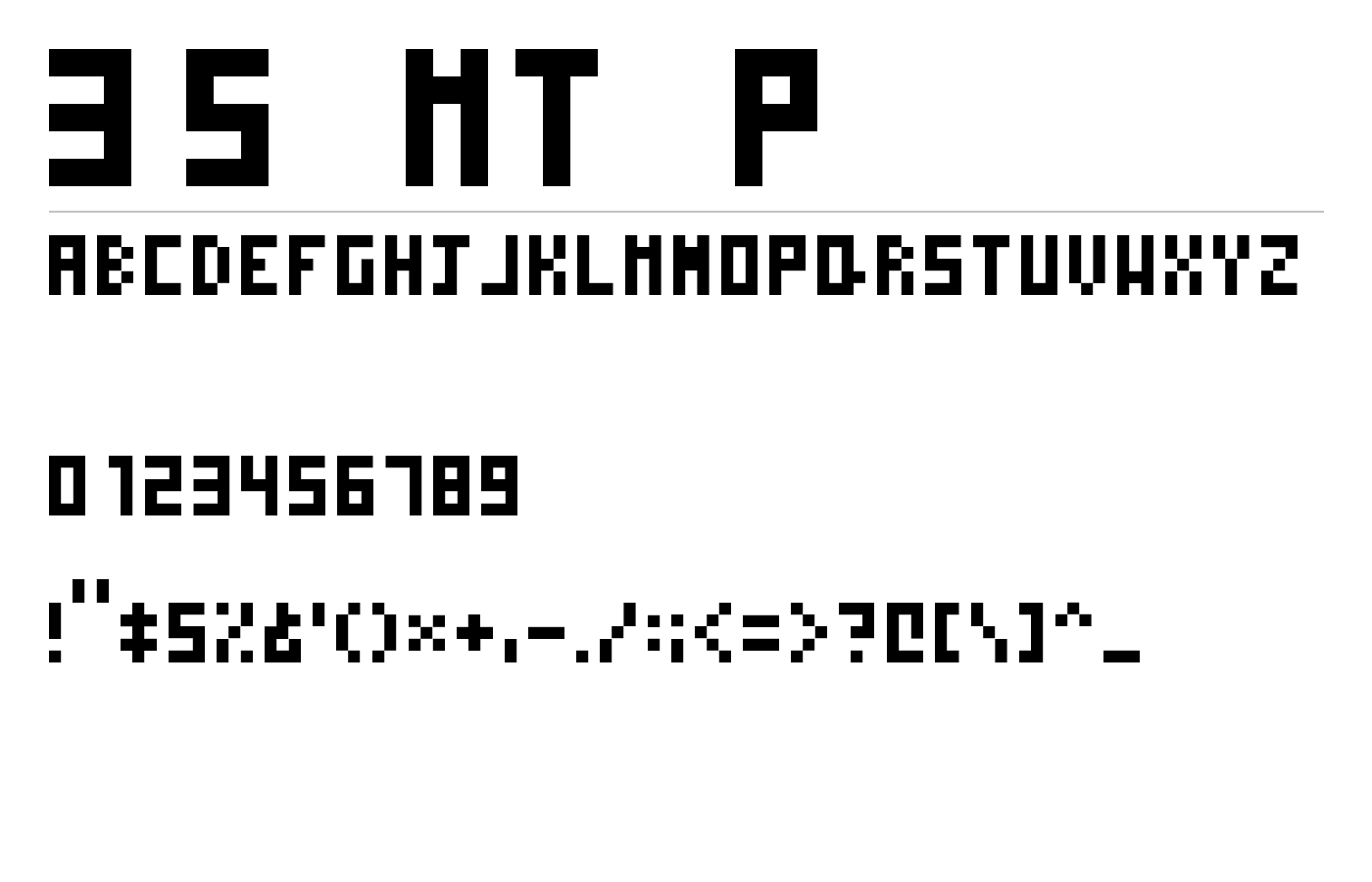
3x5 MT Pixel Font is a bold, pixelated sans serif typeface designed with a rigid, blocky structure that evokes a retro digital aesthetic. Its monospaced, geometric letterforms with consistent stroke weight and minimal contrast make it ideal for pixel art, video game design, and digital-themed branding where a nostalgic, techy feel is desired. This font works best in headlines, logos, and user interfaces that benefit from a clear, nostalgic, and tech-inspired look.
3x5 MT Pixel Font